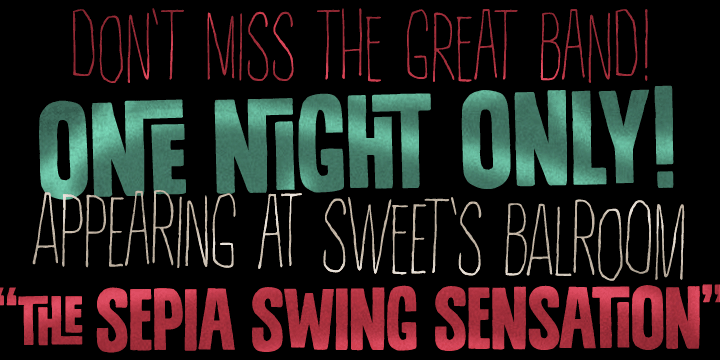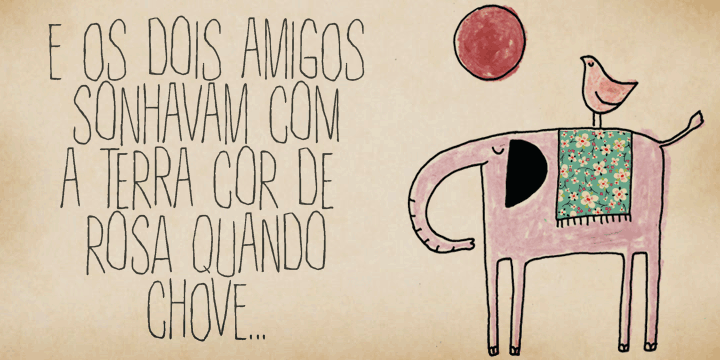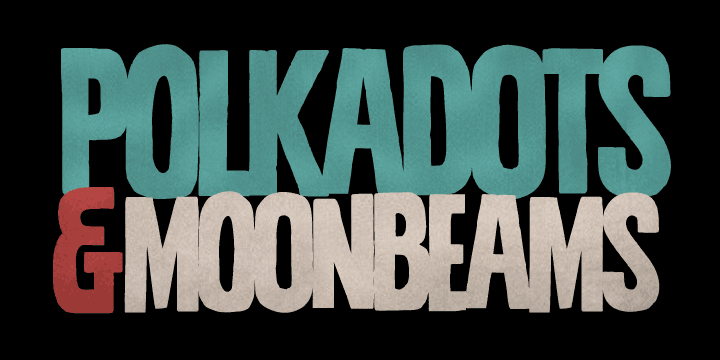
RATHER BOTH
Rather Both is a hand display font family. This typeface has two styles and was published by PintassilgoPrints.
Rather Jazzy, Rather Loud: a family of two quite distinct fonts that perform together handsomely well.
Both fonts include 2 versions of each letter, easily reachable through keyboard upper and lower keys.
They also come packed with Contextual Alternates functionality to instantly cycle the alternates, providing a nice realistic handcrafted feel: just turn on this feature in any OpenType savvy application and let the music sound!
Rather Loud brings yet another cool feature: lots of interlocking pairs for that extra twist your projects sometimes ask for.
Trigger the discretionary ligatures feature button or pick up your choices through a glyphs palette or character map.
Jazzy?
Loud?
Rather Jazzy, Rather Loud: a family of two quite distinct fonts that perform together handsomely well.
Both fonts include 2 versions of each letter, easily reachable through keyboard upper and lower keys. They also come packed with Contextual Alternates functionality to instantly cycle the alternates, providing a nice realistic handcrafted feel: just turn on this feature in any OpenType savvy application and let the music sound!
Rather Loud brings yet another cool feature: lots of interlocking pairs for that extra twist your projects sometimes ask for. Trigger the discretionary ligatures feature button or pick up your choices through a glyphs palette or character map.
Jazzy? Loud? I’d Rather Both, for sure!